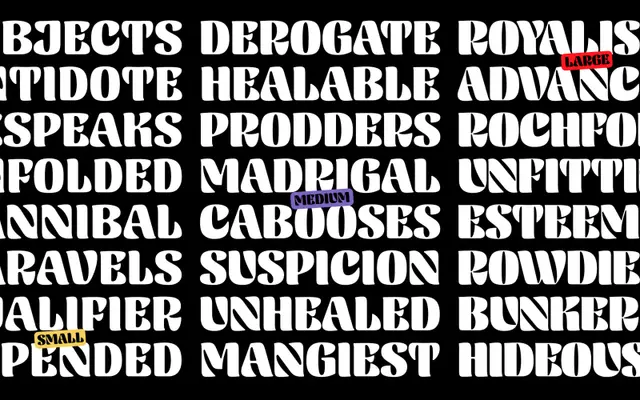
A three-optical-size fatface with rounded corners, calligraphic details and a high x-height, designed for high-impact display work.
Slimak draws on the early 19th-century British fatface tradition, adapting it with rounded corners and calligraphic details that soften the genre's characteristic drama. Three optical sizes - Small, Medium and Large - allow the family to hold up across different scales, supported by a high x-height that aids legibility at smaller settings. The package includes icons, dingbats and ornaments alongside OpenType features such as circled numbers and alternate letterforms for a, g and y.
Slimak is explicitly described as a fatface type family, a genre originating in early 19th-century Britain characterised by extreme stroke contrast and bold, attention-grabbing weight. The high-contrast letterforms with strong terminals confirm this classification.